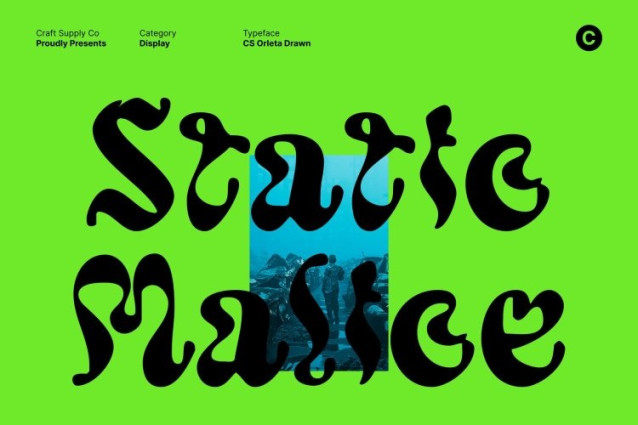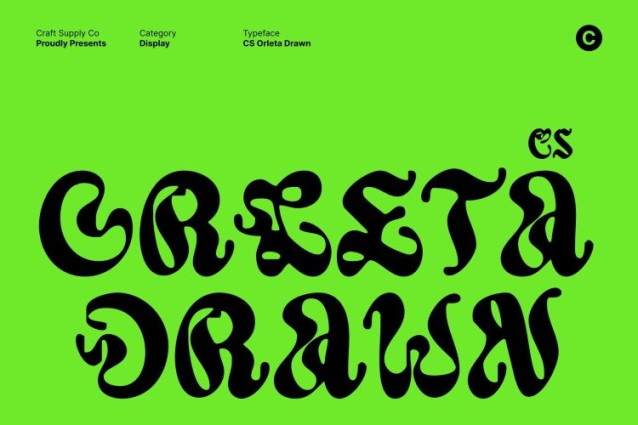
CS Orleta Drawn Font
CS Orleta Drawn Font This is a display font defined by a trippy aesthetic and flowing psychedelic curves that push visual boundaries. Its experimental letterforms feel fluid and expressive, creating an overflowing look that appears free, dynamic, and artistically unrestrained.
Hand-Drawn Character with Playful Energy
The hand-drawn character adds an organic layer that enhances the playful mood of this font. Subtle irregularities and natural stroke variations give the font a handmade feel, reinforcing its artistic personality. This drawn texture softens the psychedelic curves while adding warmth and authenticity, allowing the typography to feel expressive, spontaneous, and creatively alive.
Overflowing Forms with Funky Visual Rhythm
This font embraces an overflowing, almost liquid rhythm that creates a strong visual impact. Its curves stretch and bend in unexpected ways, producing a funky and imaginative appearance that stands out instantly. This visual rhythm makes the font especially effective for designs that celebrate individuality, experimental culture, and creative freedom.
Perfect for Music Branding and Funky Editorials
Designed for high-impact display use, this font is well suited for music branding, posters, album artwork, event visuals, and funky editorial layouts. Its psychedelic structure and hand-drawn texture help establish a memorable and distinctive identity.